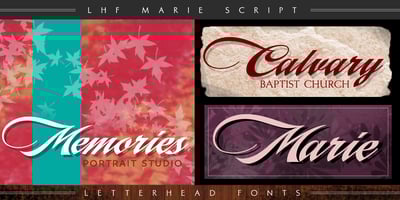
LHF Marie Script Font Family was designed by Dave Correll and published by Letterhead Fonts. LHF Marie Script contains 2 styles and family package options. This beautiful, Calligraphic style set from sign artist Dave Correll is sure to become your new favorite. You receive 2 fonts: Regular and Classic (larger flourishes on the caps). Includes numbers, full punctuation and diacritic glyphs.